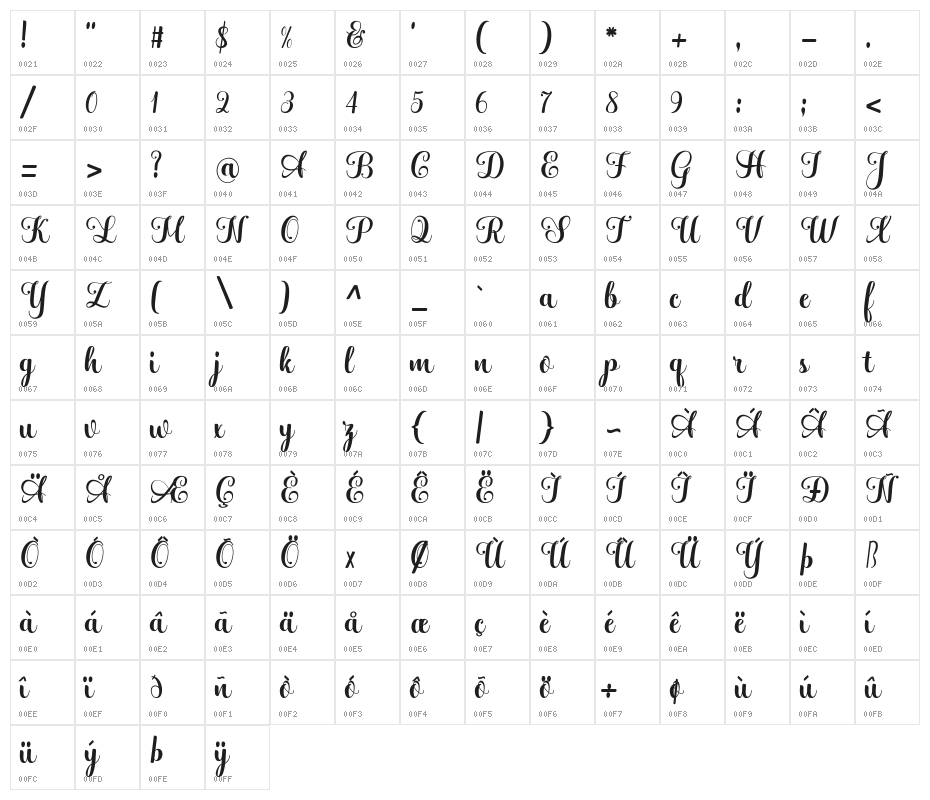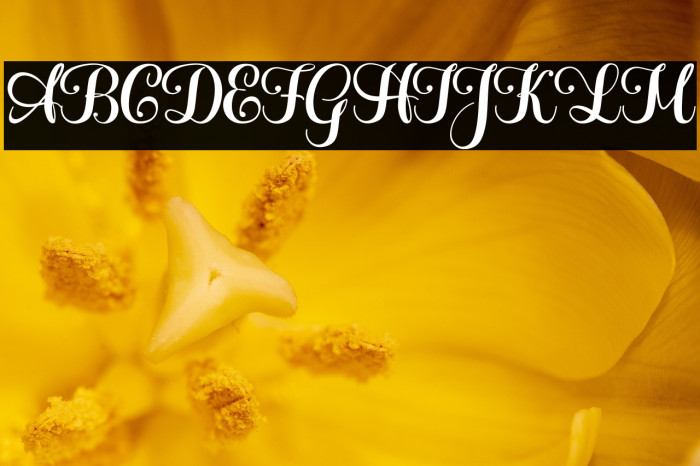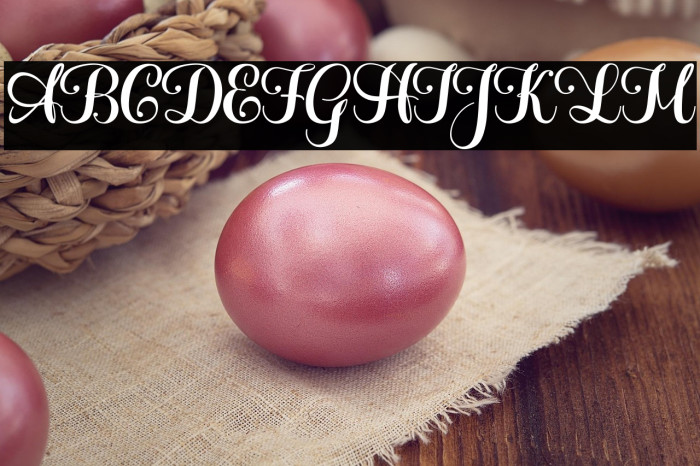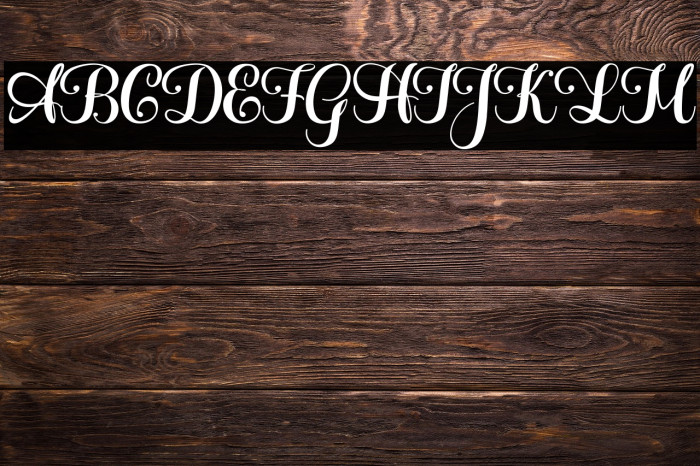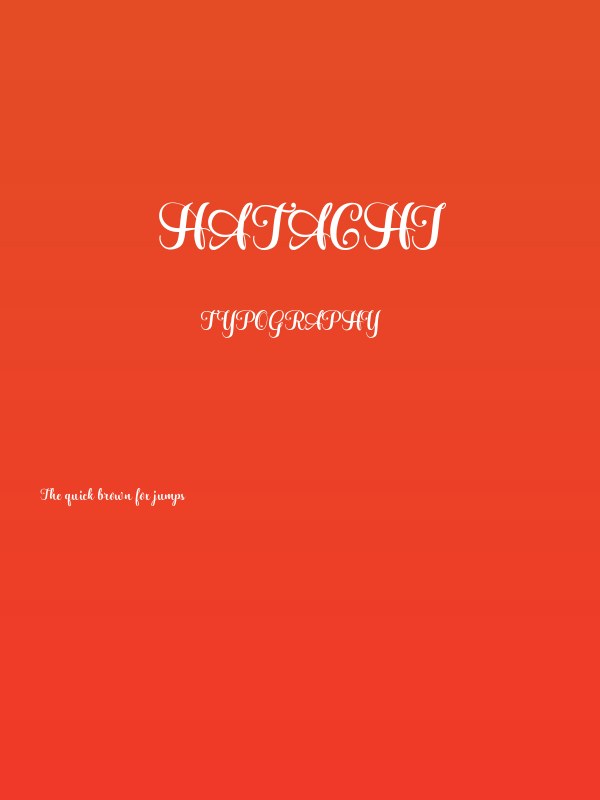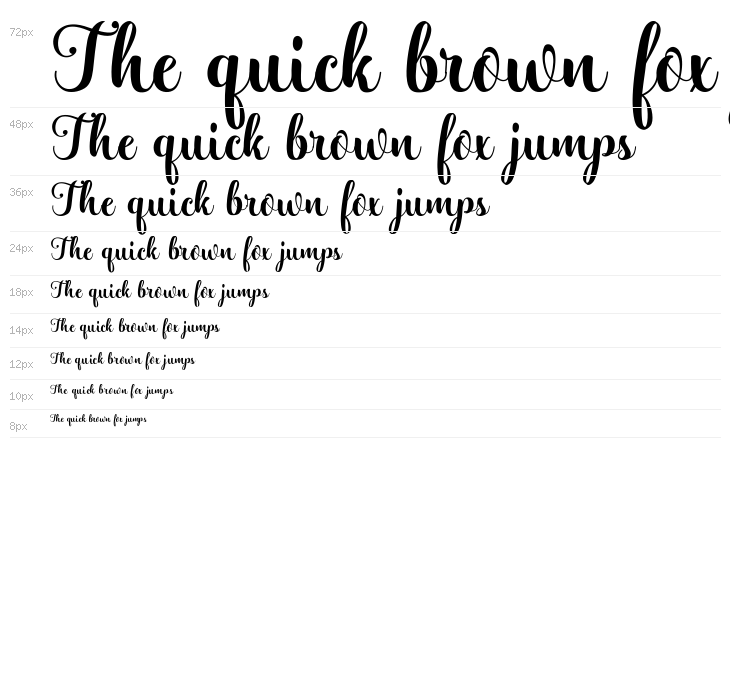
Hatachi Font
Hatachi Description
This font features an elegant and flowing script style, characterized by its smooth, cursive letterforms. The uppercase letters are adorned with intricate loops and swirls, giving them a decorative and sophisticated appearance. The lowercase letters maintain a consistent flow, with some characters extending below the baseline, adding to the font's graceful aesthetic. The numerals are styled to match the overall script theme, with a slight slant and rounded edges. Special characters are designed with similar flourishes, ensuring a cohesive look across all glyphs. This font is ideal for projects that require a touch of elegance and sophistication.
Overall StyleElegant
Use CaseLogos, Invitations, Decorative text
Proposed ProjectsWedding invitations, luxury branding, elegant packaging, greeting cards, and decorative signage.